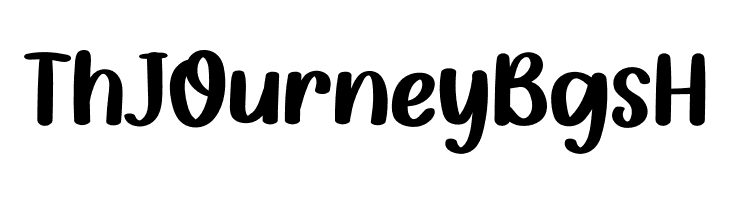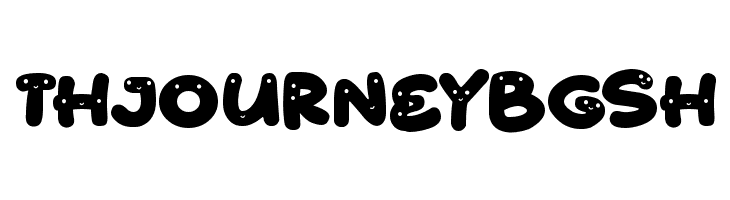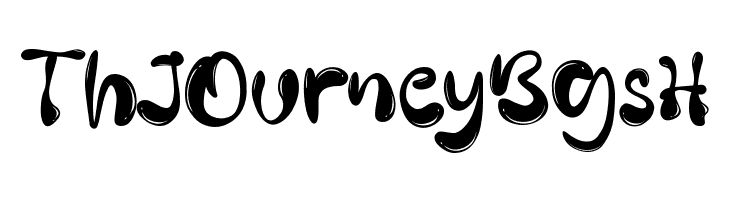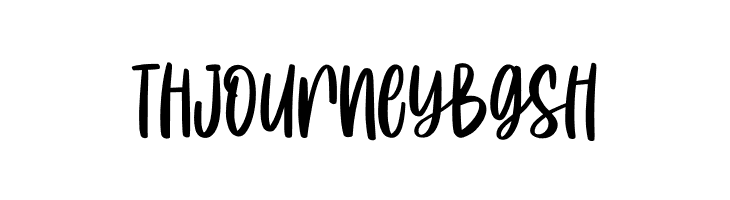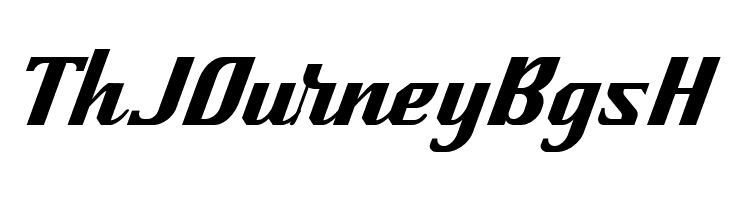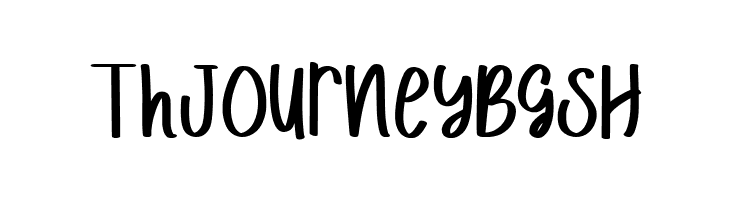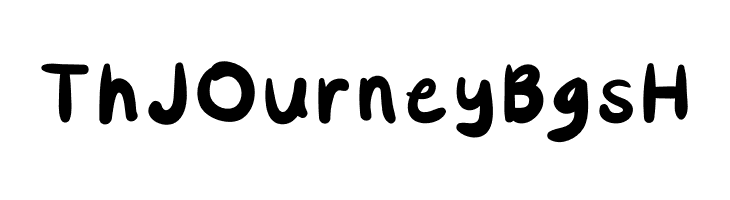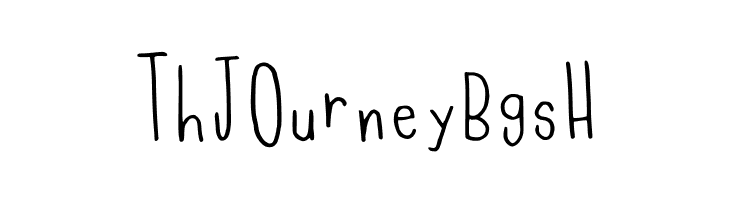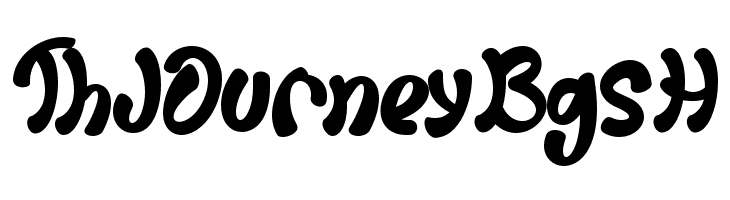
A playful, rounded font with bold, smooth curves and a friendly appearance.
A playful, heart-accented font with bold, rounded characters.
A playful, bubble-like font with rounded, bold characters.
An elegant and flowing script font with intricate letterforms and graceful curves.
A playful, handwritten font with bold, smooth strokes and a whimsical style.
A bold, angular script font with sharp edges and a modern flair.
A playful, handwritten font with bold, rounded characters.
A playful, bold, and rounded font with a hand-drawn style.
A playful, hand-drawn font with a whimsical and informal style.
A playful, bold, and rounded font with a hand-drawn feel.